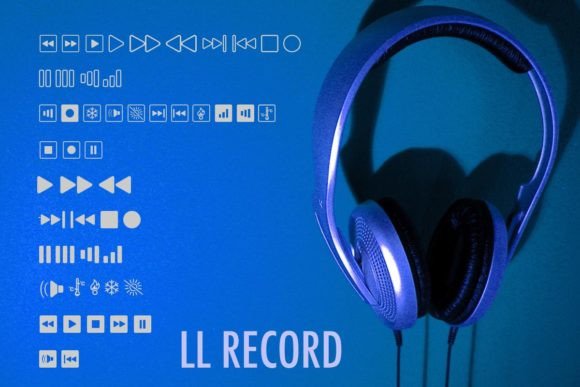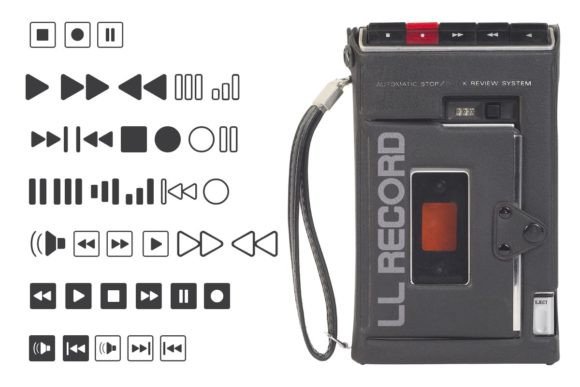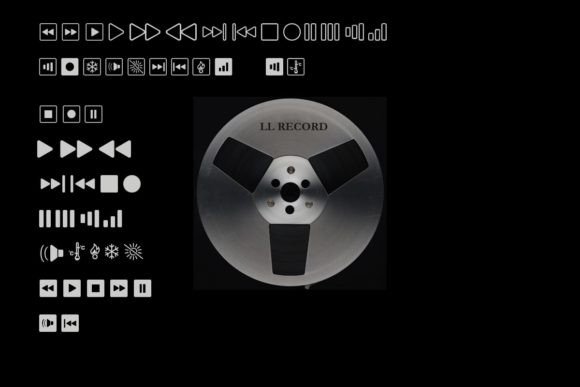
LL Record Font
About LL Record Font
Introducing LL Record: Fun Dingbat Set Inspired by Stereo Receiver Buttons!
LL Record is an exciting dingbat set that draws inspiration from the retro charm of stereo receiver buttons. With its clean design and playful style, this collection of dingbats is perfect for amplifying your typographic designs and adding a touch of vintage flair.
Each dingbat within the LL Record set represents a different button or symbol found on a stereo receiver. From volume controls and tuner dials to playback buttons and equalizer sliders, these dingbats allow you to infuse your designs with a nostalgic vibe and a hint of music-related aesthetics.
Whether you’re working on album covers, music posters, website designs, or any other typographic project, LL Record offers a wide range of elements to enhance your compositions. Incorporate these dingbats as decorative accents, create eye-catching headers and titles, or use them to craft unique visual narratives that celebrate the world of music and audio.
The clean and versatile design of LL Record ensures that these dingbats seamlessly integrate into your typographic compositions. They maintain their clarity and legibility, allowing you to effectively communicate your message while adding a touch of retro charm and musical nostalgia.
One of the greatest advantages of LL Record is its ability to evoke a sense of nostalgia and connect with music lovers. The symbols and elements within the dingbat set are associated with the tactile experience of operating a stereo receiver, bringing back memories of vinyl records, cassette tapes, and radio tuning. By incorporating them into your designs, you can create a sense of familiarity and evoke emotions related to the joy of music.
LL Record can be a valuable tool for a wide range of design projects. Whether you’re creating branding for music stores, designing gig posters for bands, or simply seeking to infuse your work with a touch of vintage style, these dingbats provide a versatile and visually appealing solution.
Additionally, LL Record offers endless creative possibilities. Mix and match the dingbats to create unique compositions, layer them with typography or other design elements, or use them individually as focal points. The versatility of the dingbat set allows you to tailor your designs to suit your specific vision and desired aesthetic.
Embrace the retro charm of stereo receiver buttons with LL Record. Let these dingbats amplify your typographic designs, bringing a sense of nostalgia, musicality, and vintage style. Whether you’re an experienced designer or just starting your creative journey, LL Record is here to inspire and elevate your work.
So, ignite your creativity and explore the wonders of LL Record. Let the spirit of stereo receiver buttons infuse your typographic designs with a sense of nostalgia, musicality, and retro charm. Captivate your audience with clean and fun dingbats that transport them to the era of vinyl records and analog audio experiences.
Experience the magic of LL Record and discover the endless possibilities it offers for amplifying your typographic designs. Embrace the vintage allure of stereo receiver buttons and create captivating visual experiences that resonate with music enthusiasts and evoke a sense of joy and appreciation.
Unleash the power of LL Record and let your typographic designs groove to the rhythm of nostalgia and retro aesthetics.